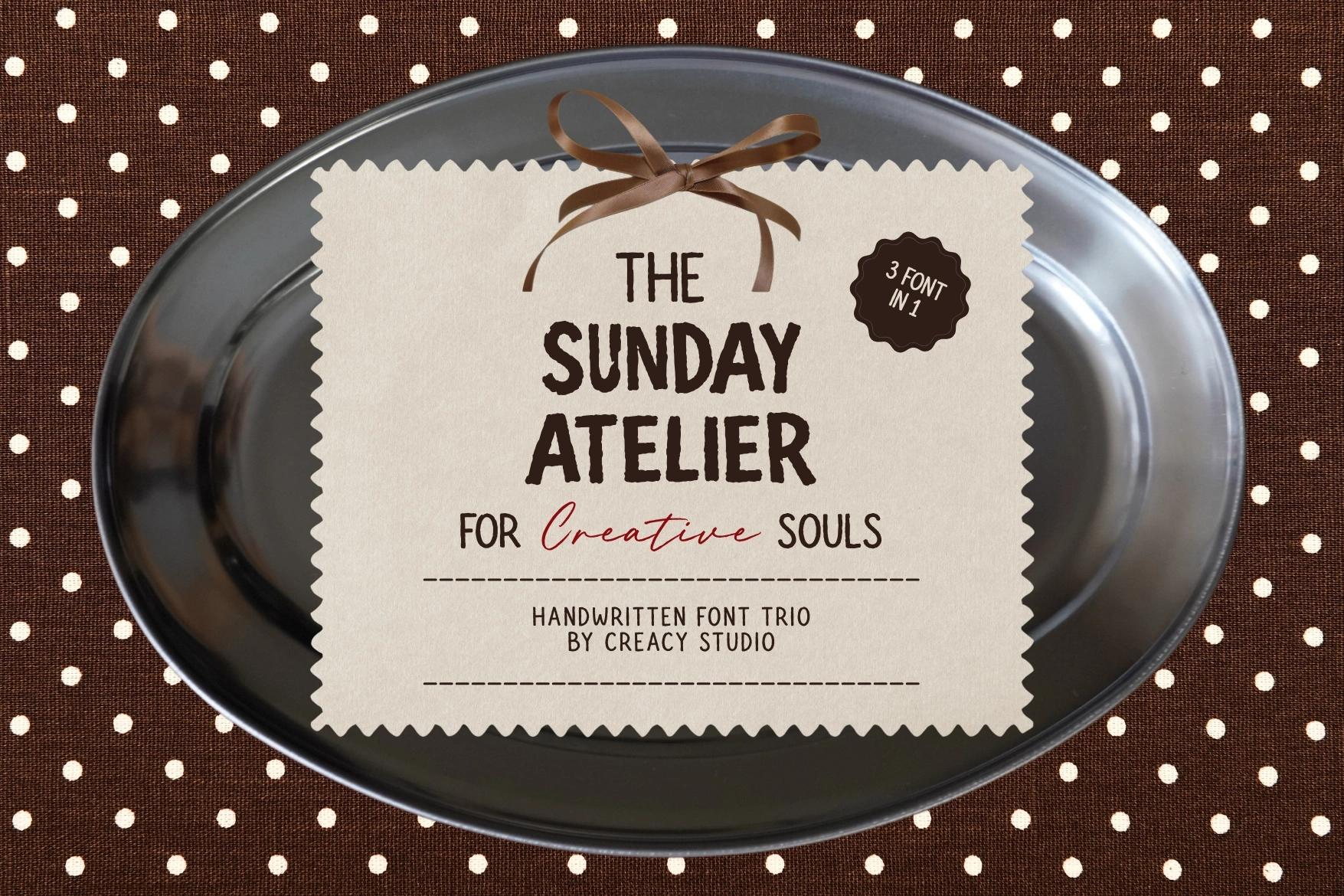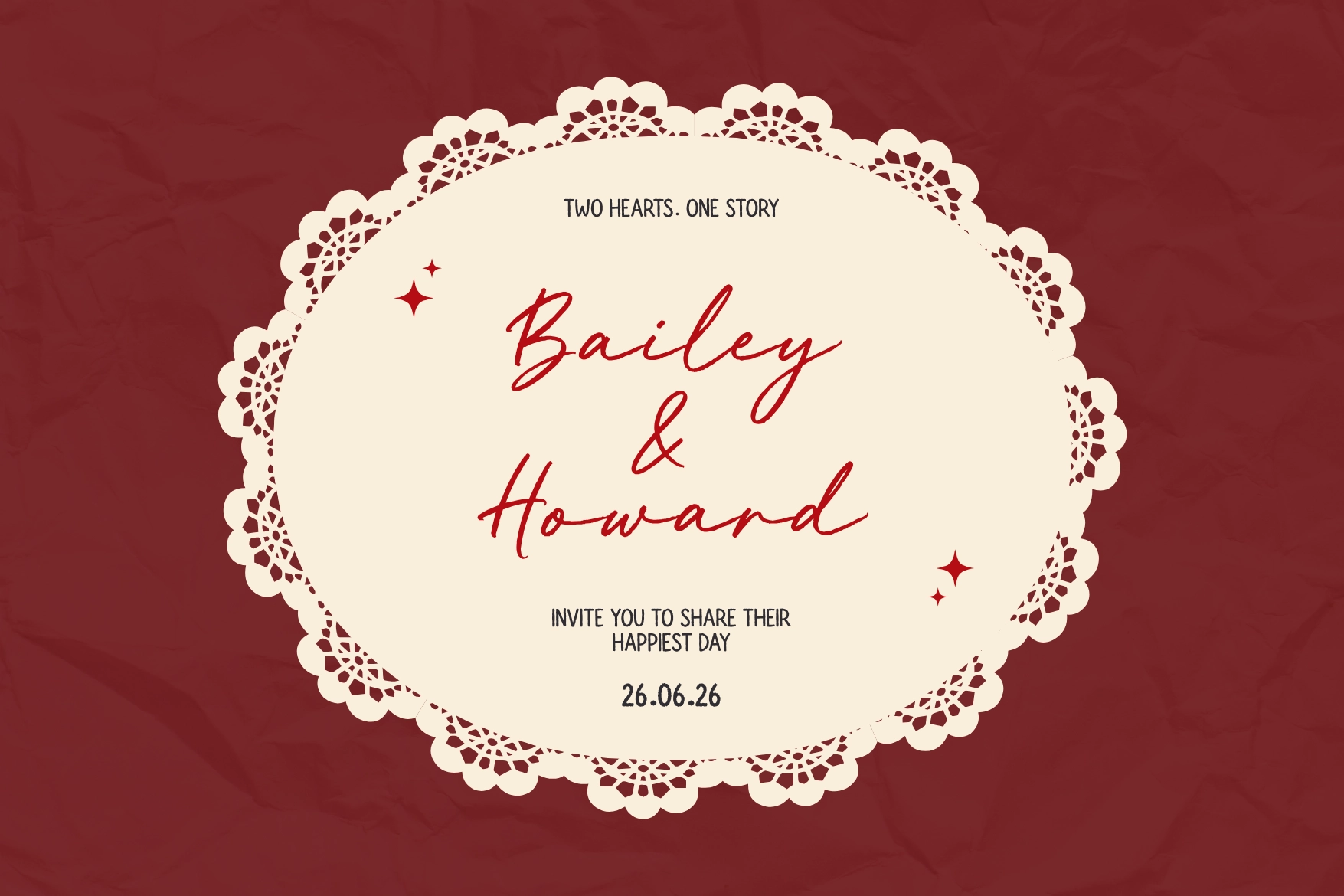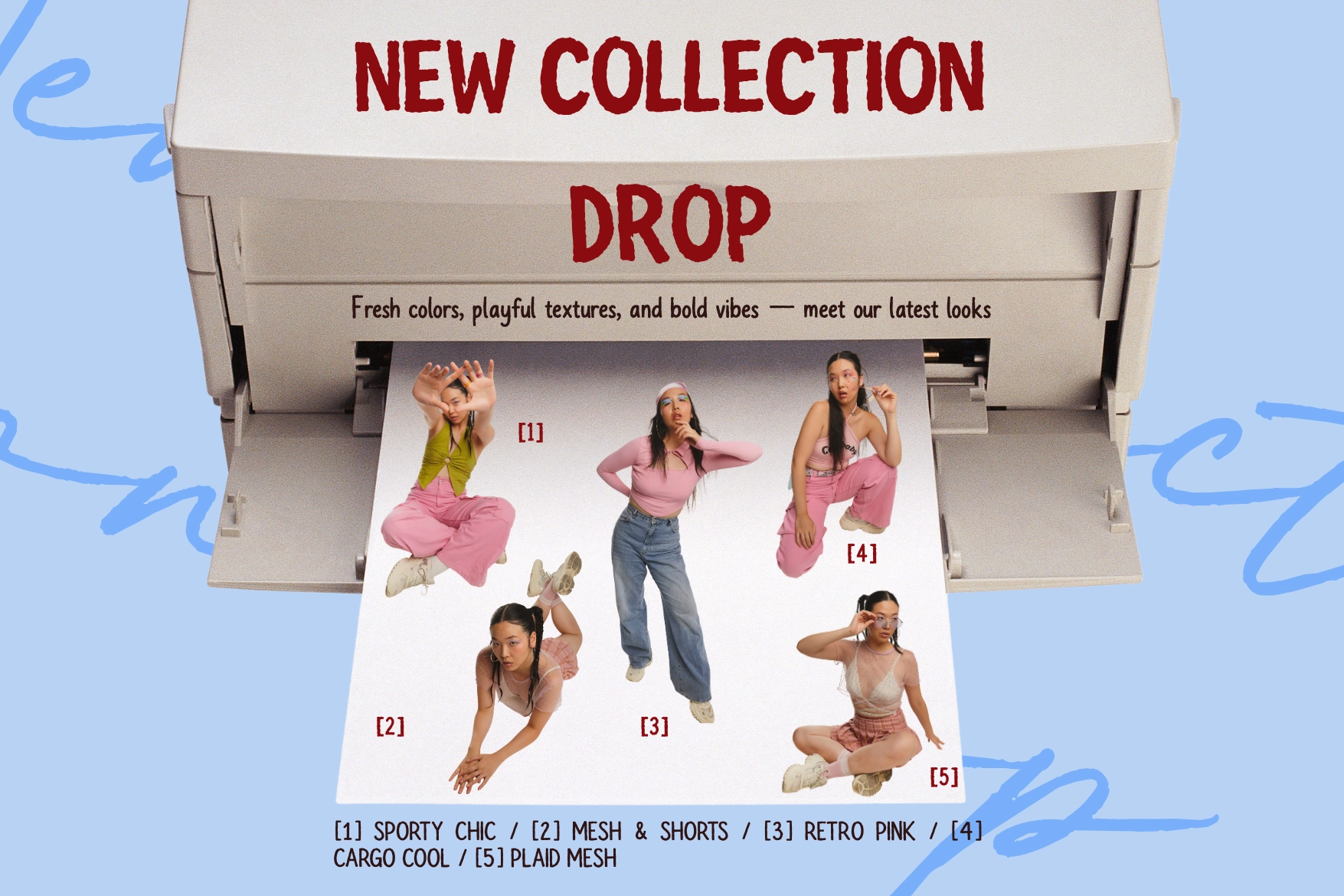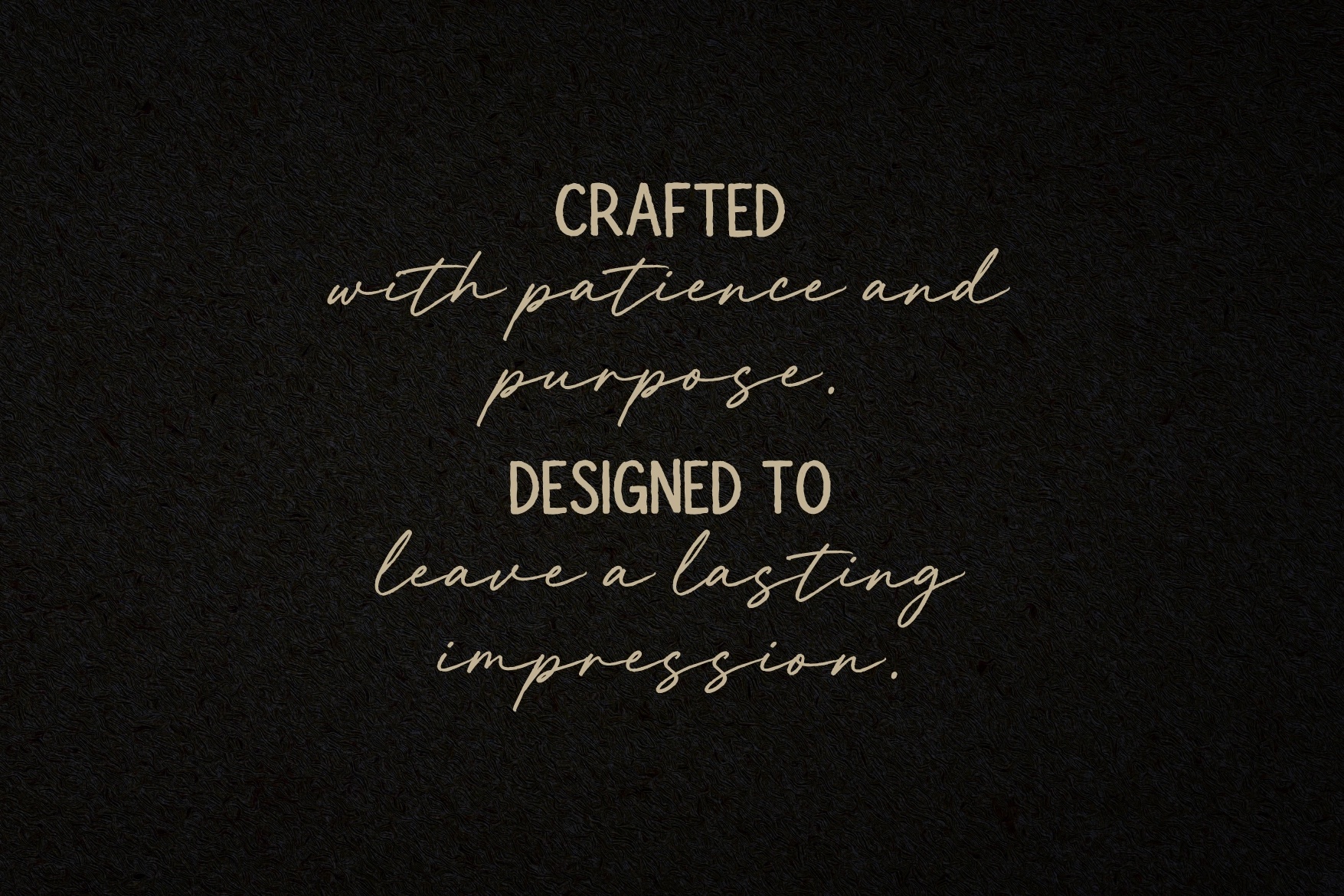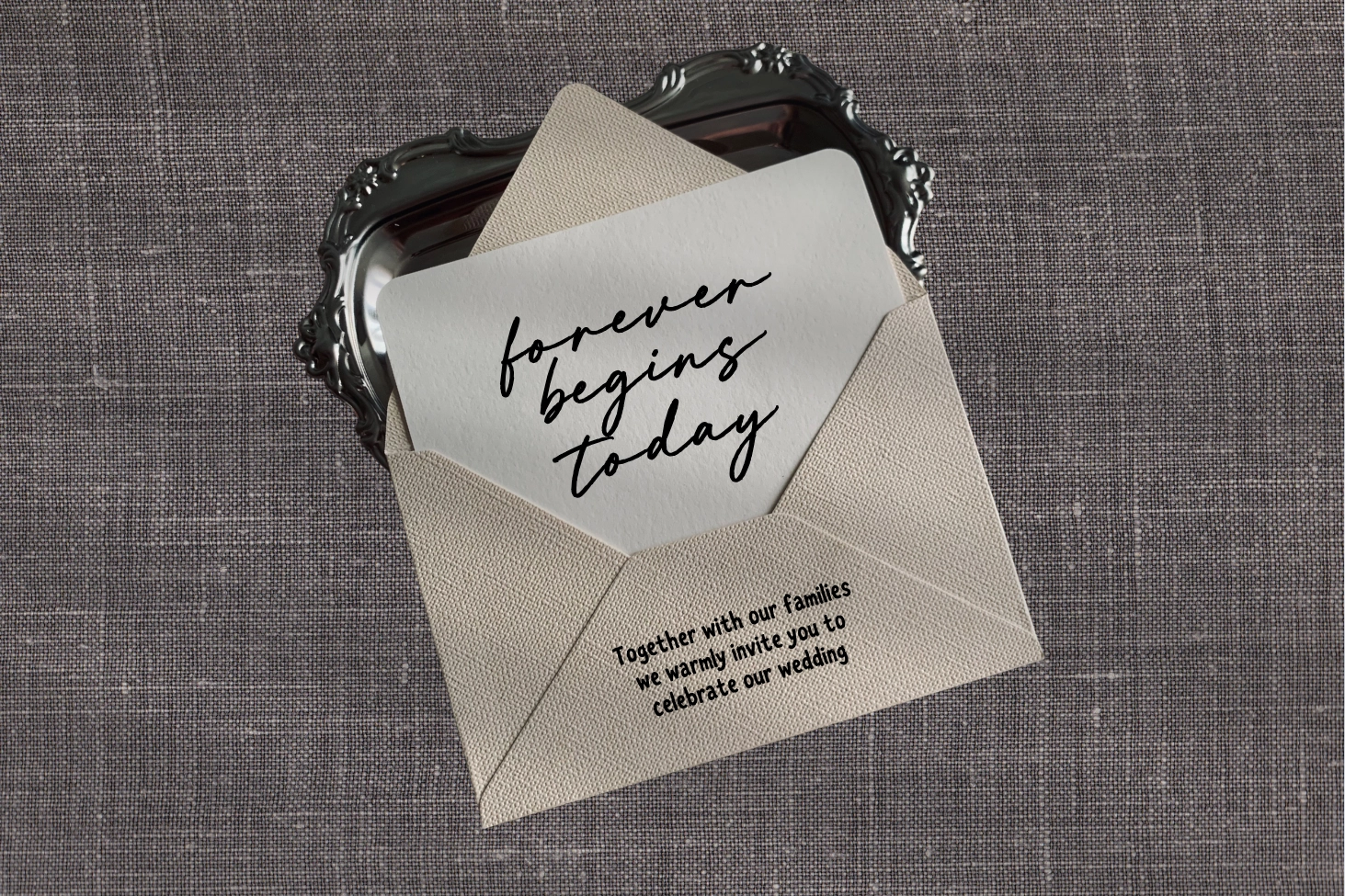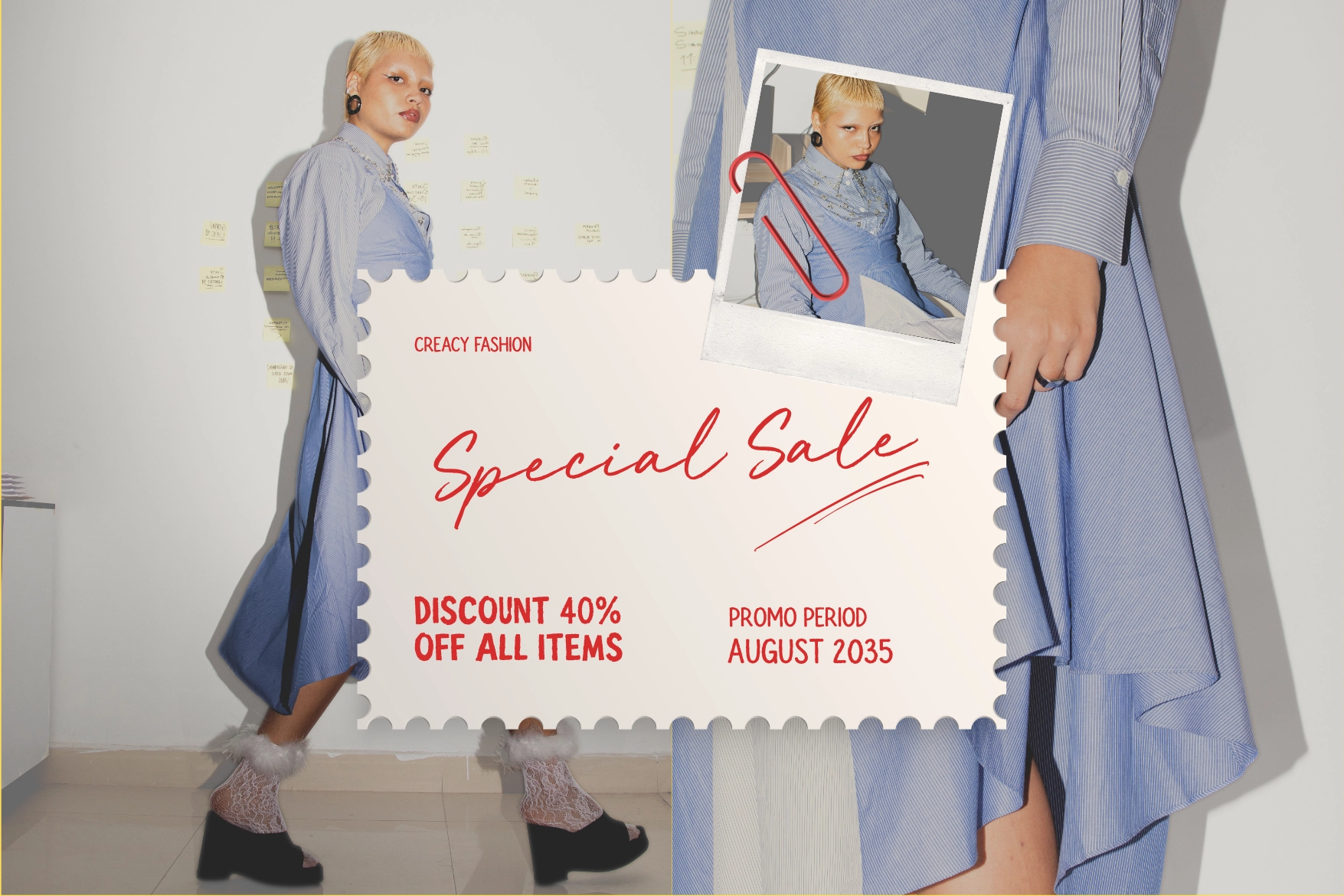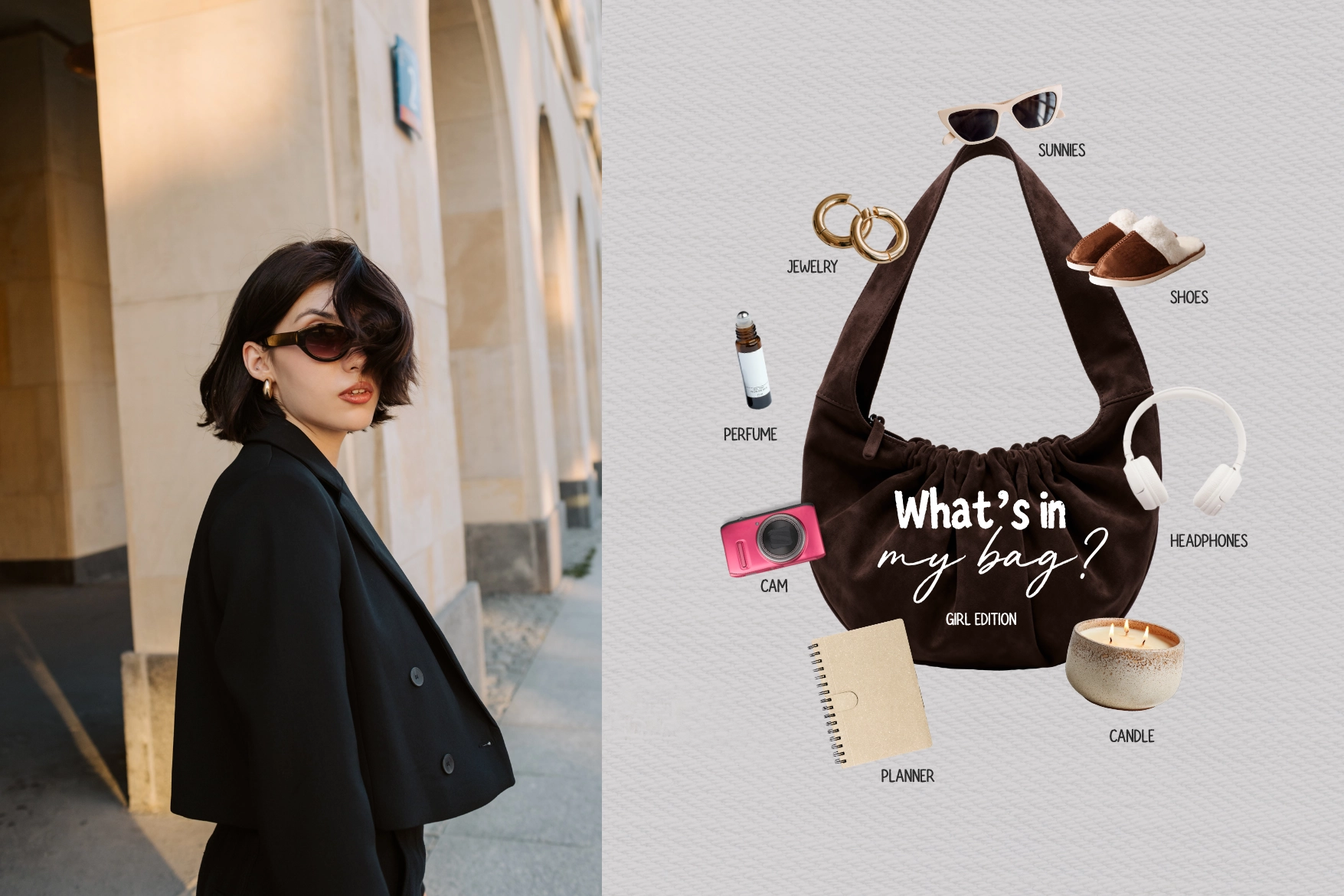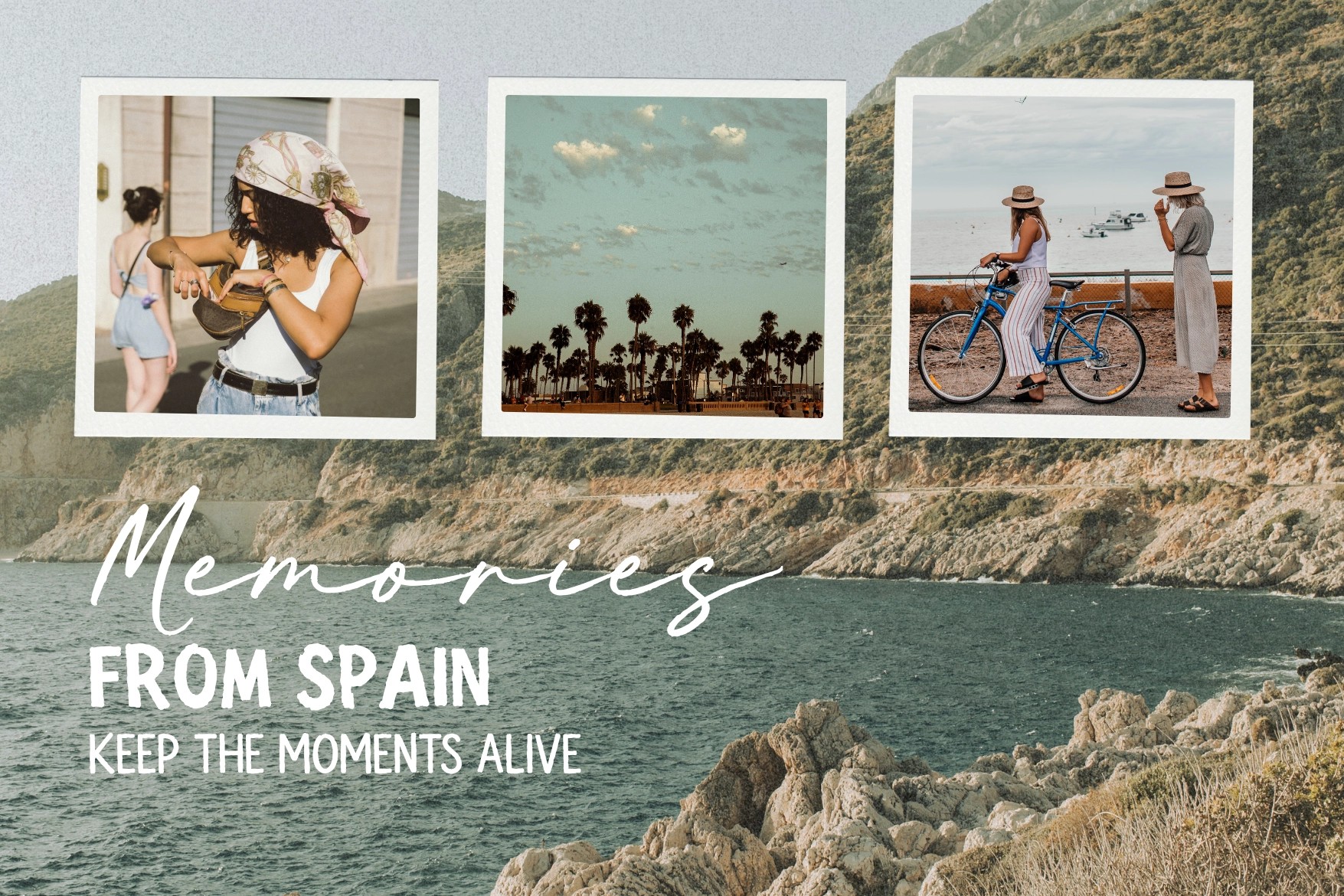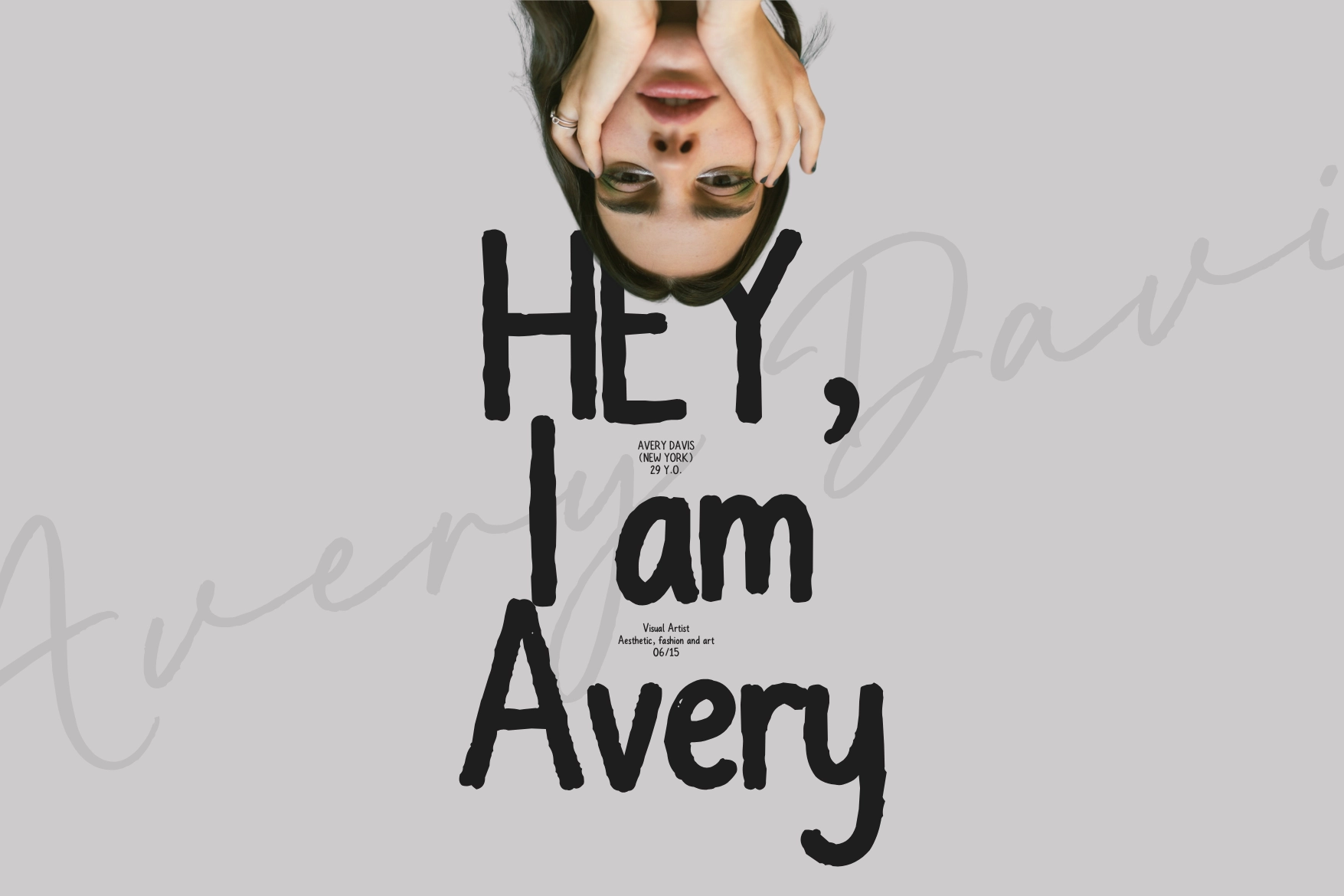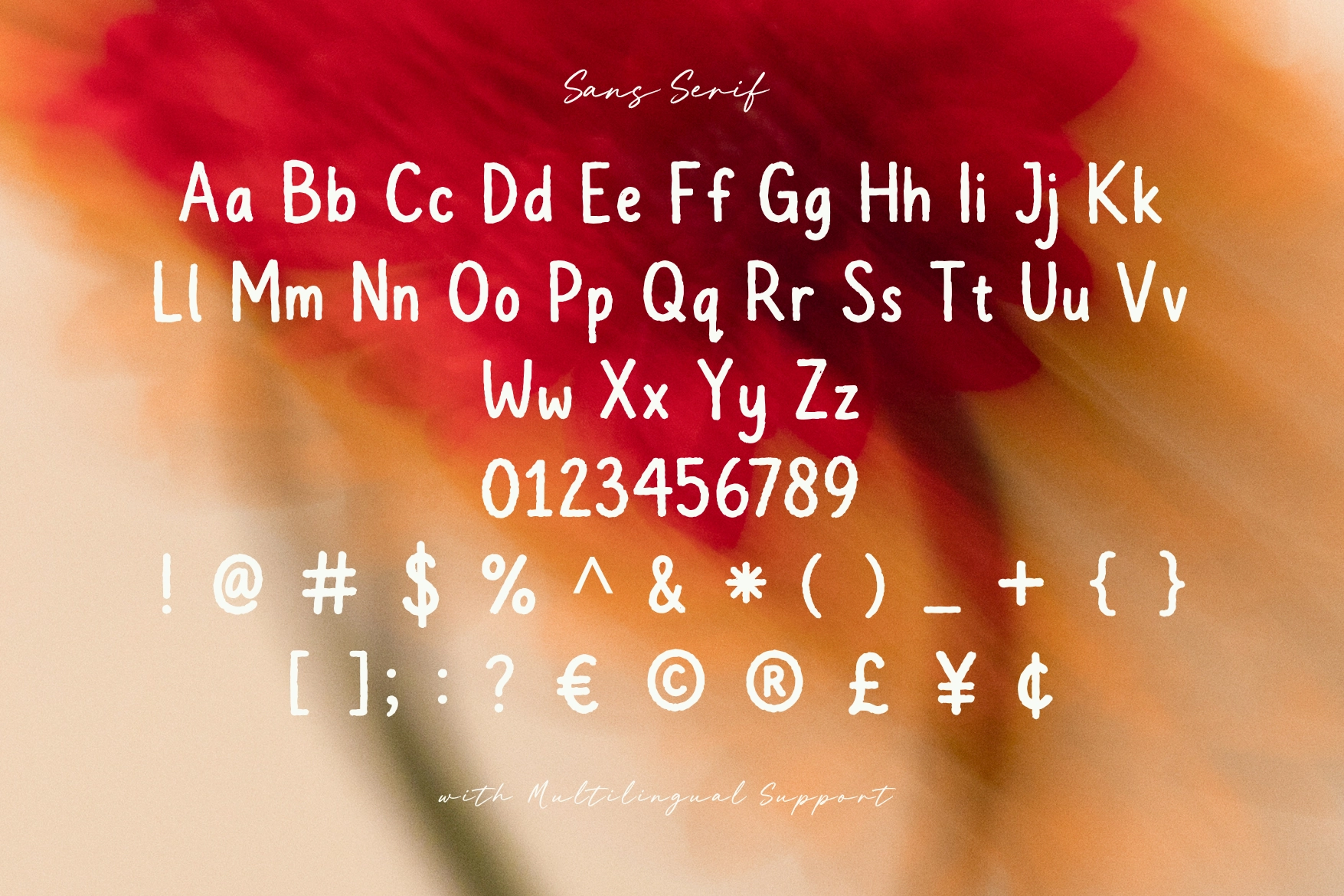
The Sunday Atelier - Handwritten Font Trio
The Sunday Atelier is a handwritten font trio gathered around one cozy-café, hand-lettered concept — a bold hand-brushed display cap, a casual rough-edged companion, and a connected script that swings into loose loops and long descenders. Together the three behave like three passes of the same hand: one for headlines, one for supporting lines, one for signatures and quotes.
The display cap sets logo lockups and headline type, the rough companion covers supporting copy and packaging labels, and the script handles quotes, monograms, and invitation lettering. Use it for wedding stationery, greeting cards, café and bakery branding, packaging labels, social media quotes, and lifestyle editorials.